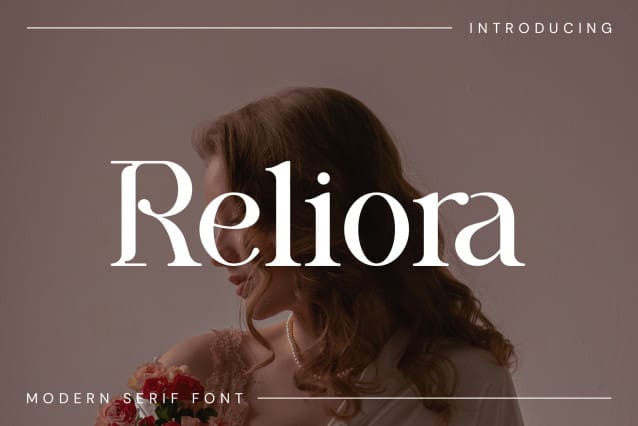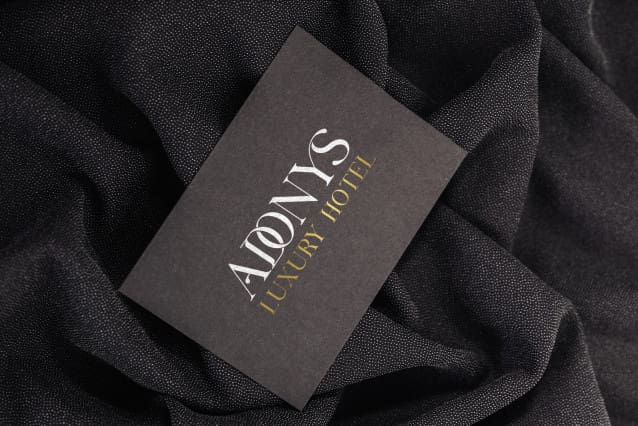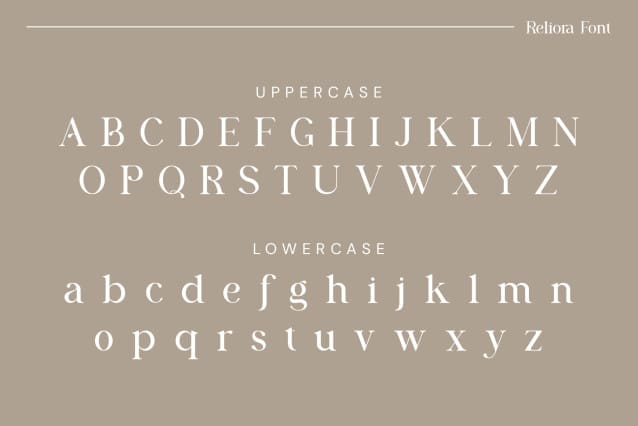
Reliora Font
Reliora Font is a balanced, smooth, elegant and stylish serif font. He has a beautiful character. It fits perfectly with invitation card designs, company logos, movie titles, movie names, business cards, book titles, brand names and various other designs. Reliora Font is a subtle serif font that exudes sophistication and elegance. Its stylish alternations and ligatures make this font the perfect partner for any project.